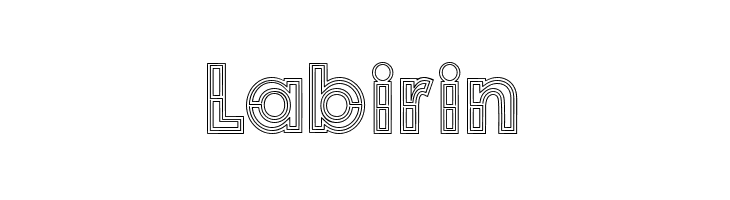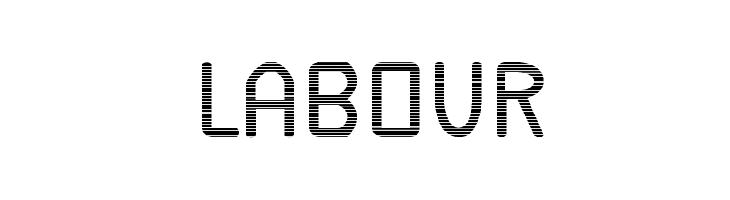
( Lianne Elliott )
A modern, striped font with a bold, geometric design.
( Fonts by Skiiller Studio )
A playful, bold, and hand-drawn font with a whimsical flair.
A decorative font with intricate, swirling patterns inside bold, rounded characters.
A bold, decorative font with geometric and maze-like elements.
A bold, playful, and hand-drawn font with irregular, artistic characters.
( Fonts by Philippe BLONDEL www.philing.net )
An abstract, intellectual font with diagonal line accents.
An ornate, lace-patterned font with a vintage and elegant style.